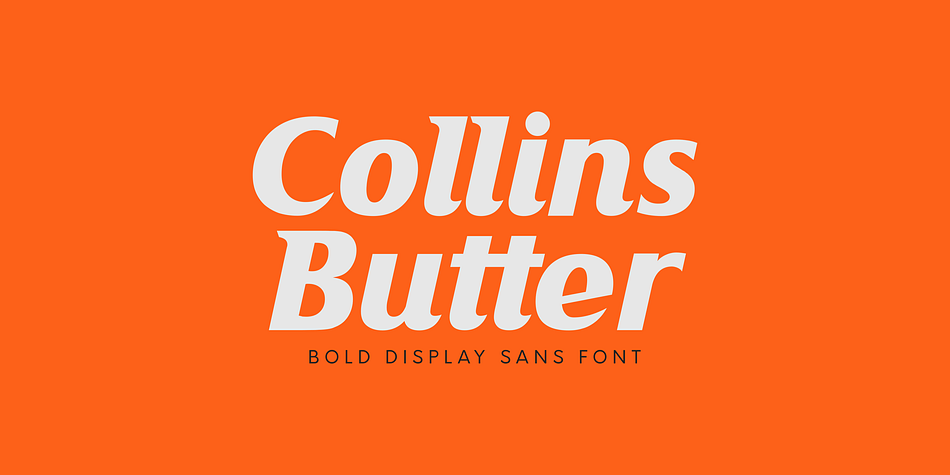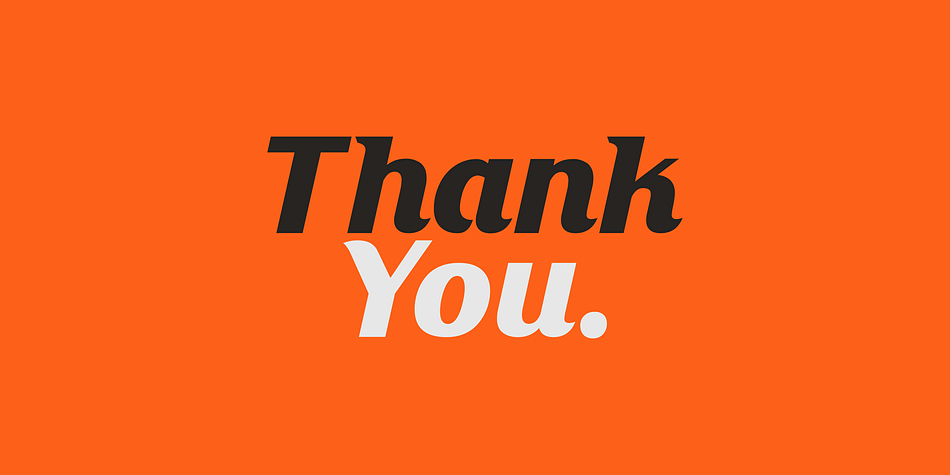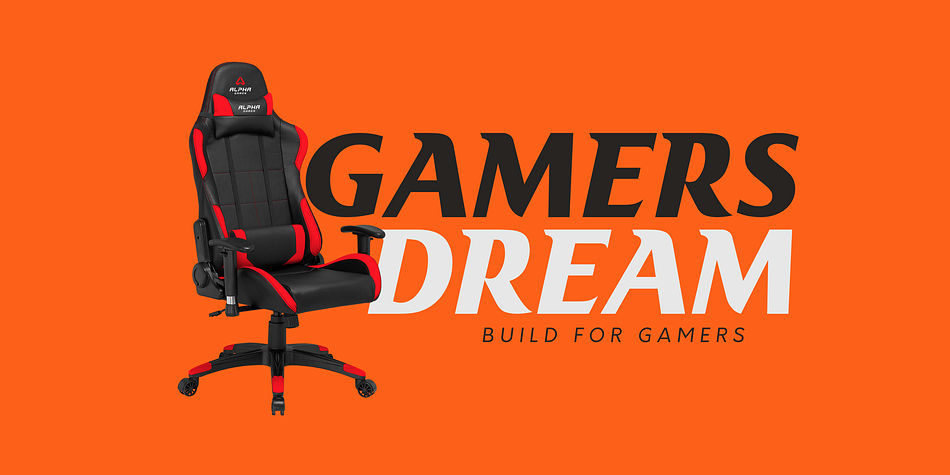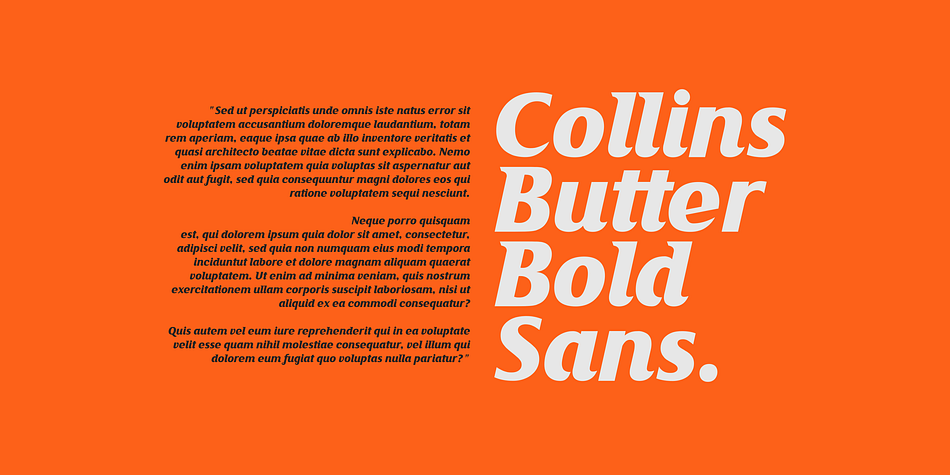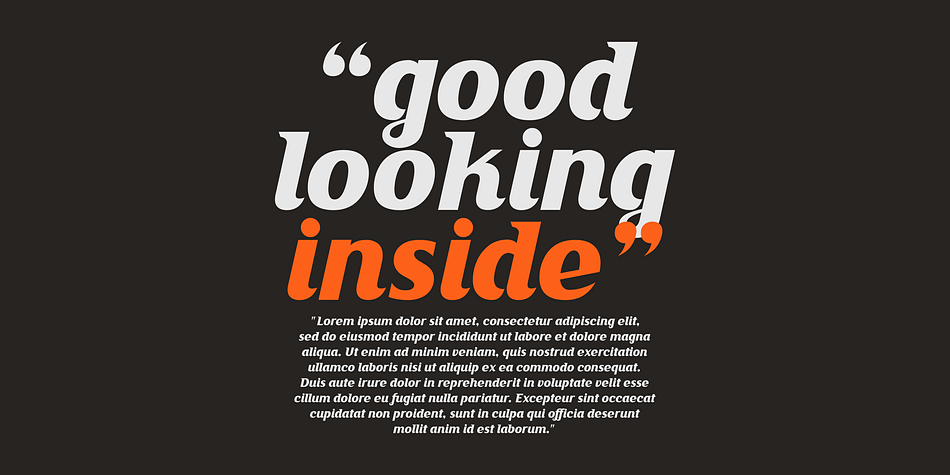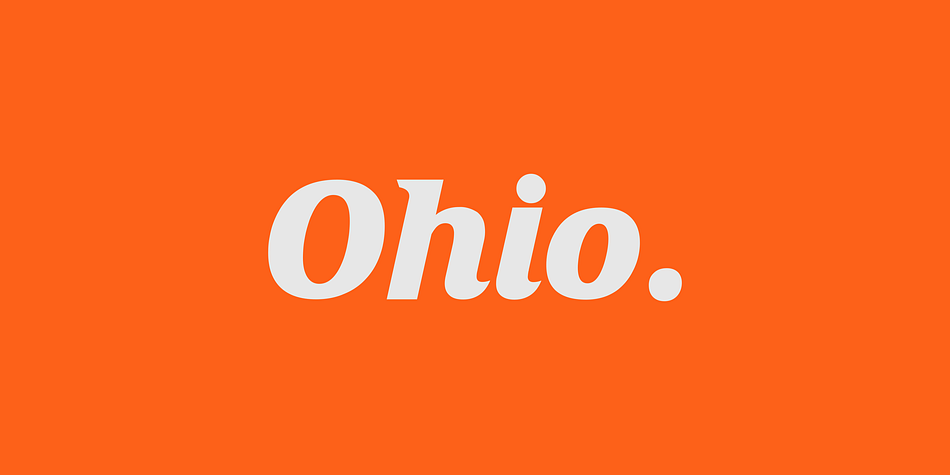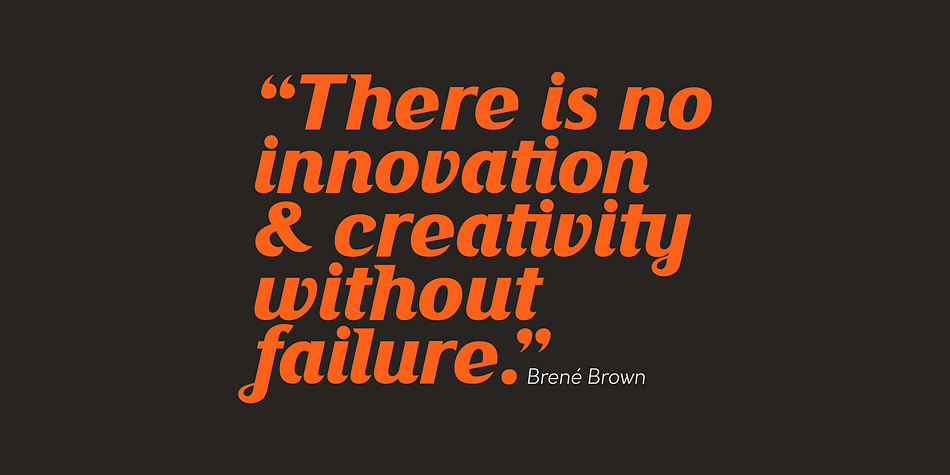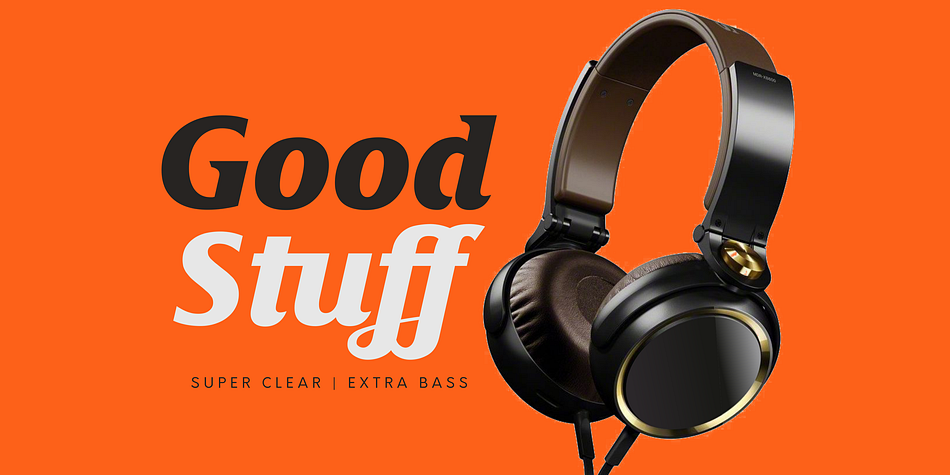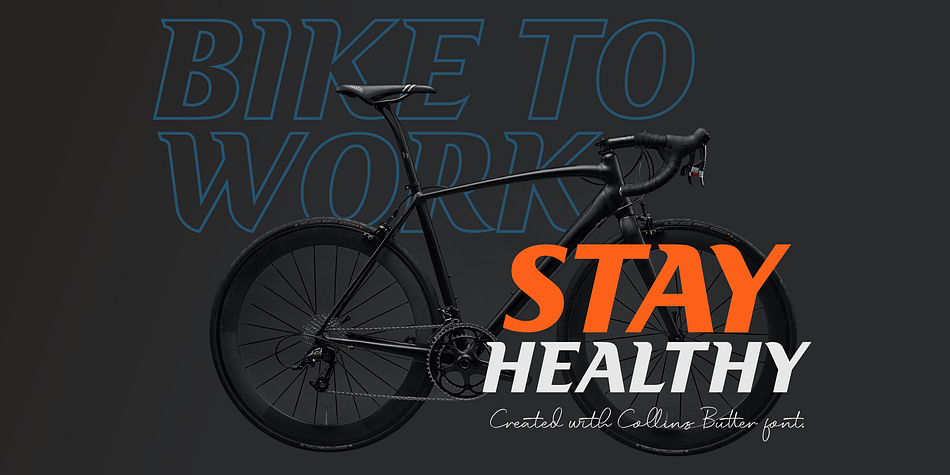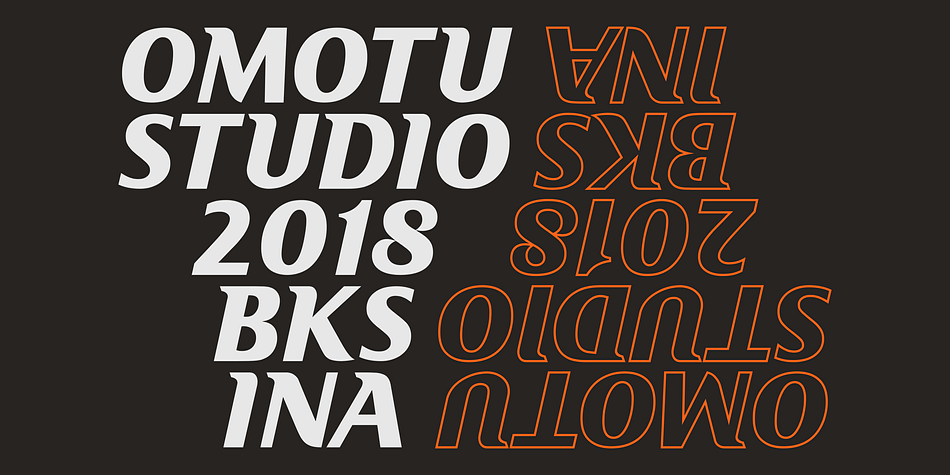
Collins Butter
Collins Butter is a sans serif font family. This typeface has two styles and was published by Omotu Studio.
Collins Butter is a display sans font. Comes with 2 fonts family, solid and hollow. Great for logotype, branding, packaging design, poster design, website / display, editorial, headline, and more.
- Uppercase and lowercase characters
- Supports international languages
- OpenType features: alternates and ligatures.